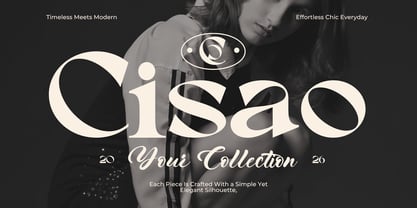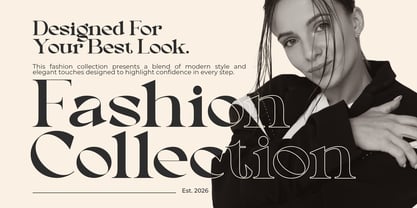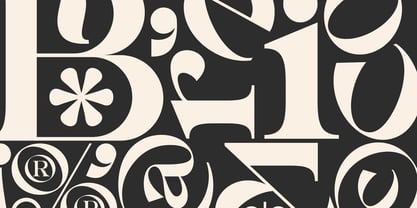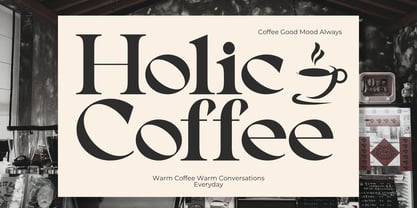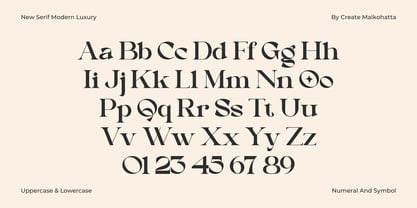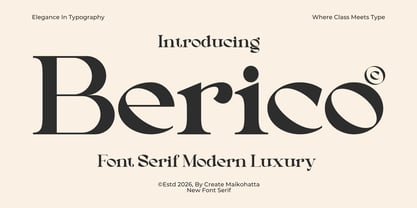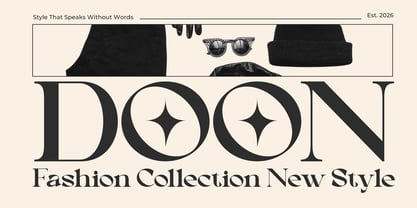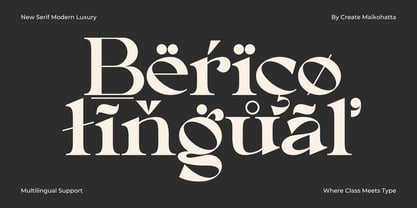
Berico
by Maikohatta
The Berico Font Family was designed by Gilang Ternadho and published by Maikohatta. Berico contains 1 styles. More about this family
Introducing our new product Berico – Modern Luxury Serif
Berico is a modern luxury serif font that blends timeless elegance with contemporary sophistication. Designed with high-contrast letterforms and stylish curves, this typeface delivers a refined and premium aesthetic perfect for luxury branding and editorial projects.
Its graceful character makes Berico ideal for fashion logos, magazine headlines, cosmetic packaging, wedding invitations, boutique branding, social media templates, and high-end visual identities. The font combines classic serif beauty with modern artistic details, creating a unique and memorable typography experience.
Designers: Gilang Ternadho
Foundry: Maikohatta